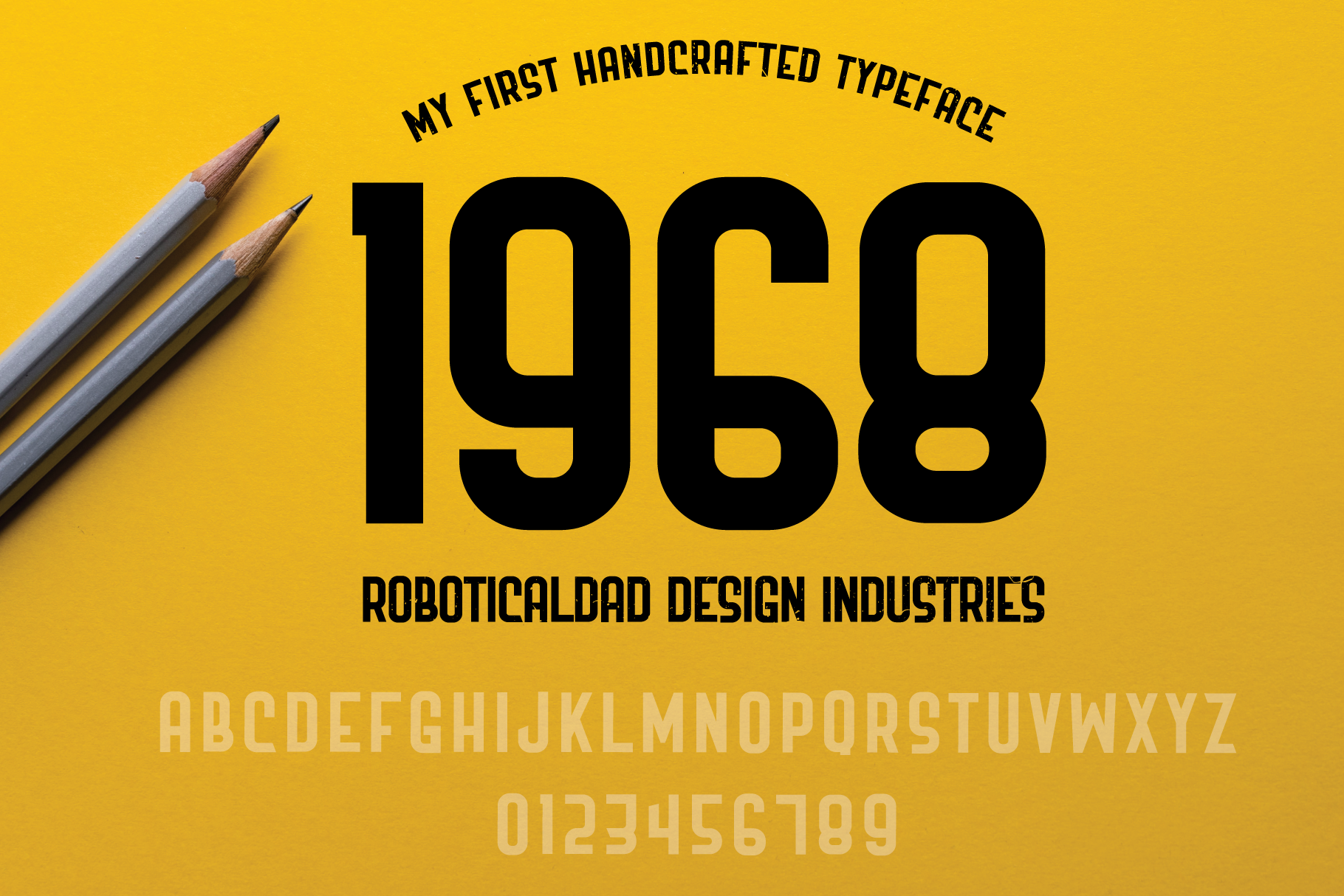
Nineteen68 - Retro Typeface
Nineteen68 is a retro typeface with an art deco feel. This display font comes in all uppercase including numbers, and punctuations. This typeface is ideal for brand logos, posters, book covers, titles, header images, magazine spreads, etc.